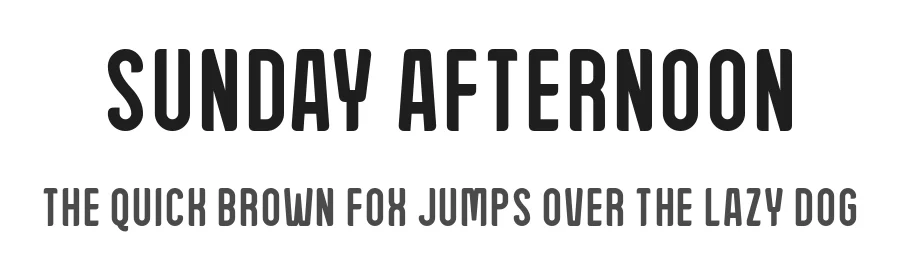
About Moonlite Font
Moonlite is a modern display sans serif font for any professional project brandings, such as social media campaigns, ads, cards, merchandise, and so on. Every letter has a unique and beautiful touch. It is also available with an outline version.
Moonlite Font is a versatile sans-serif font that works for both headings and body text. Pair it with a contrasting serif or slab serif font to add visual interest and a clear distinction between titles and body copy.